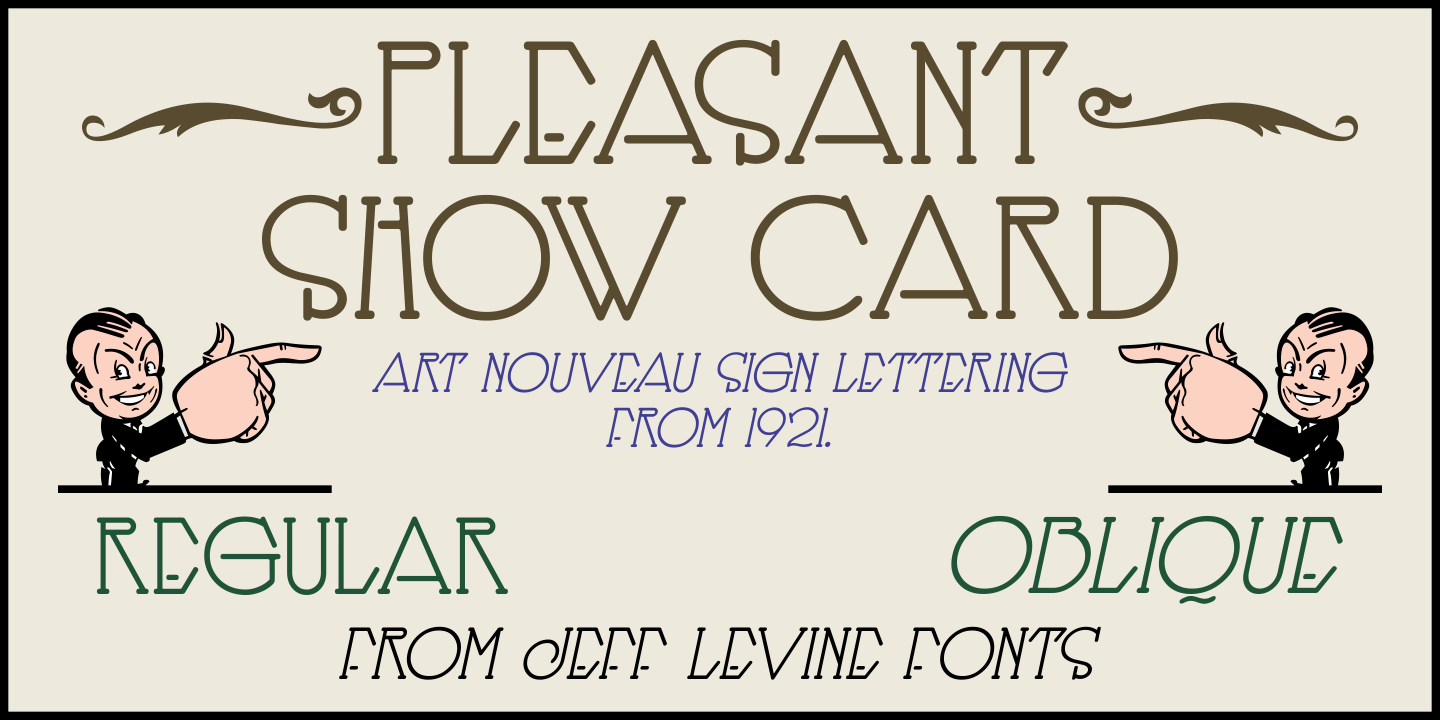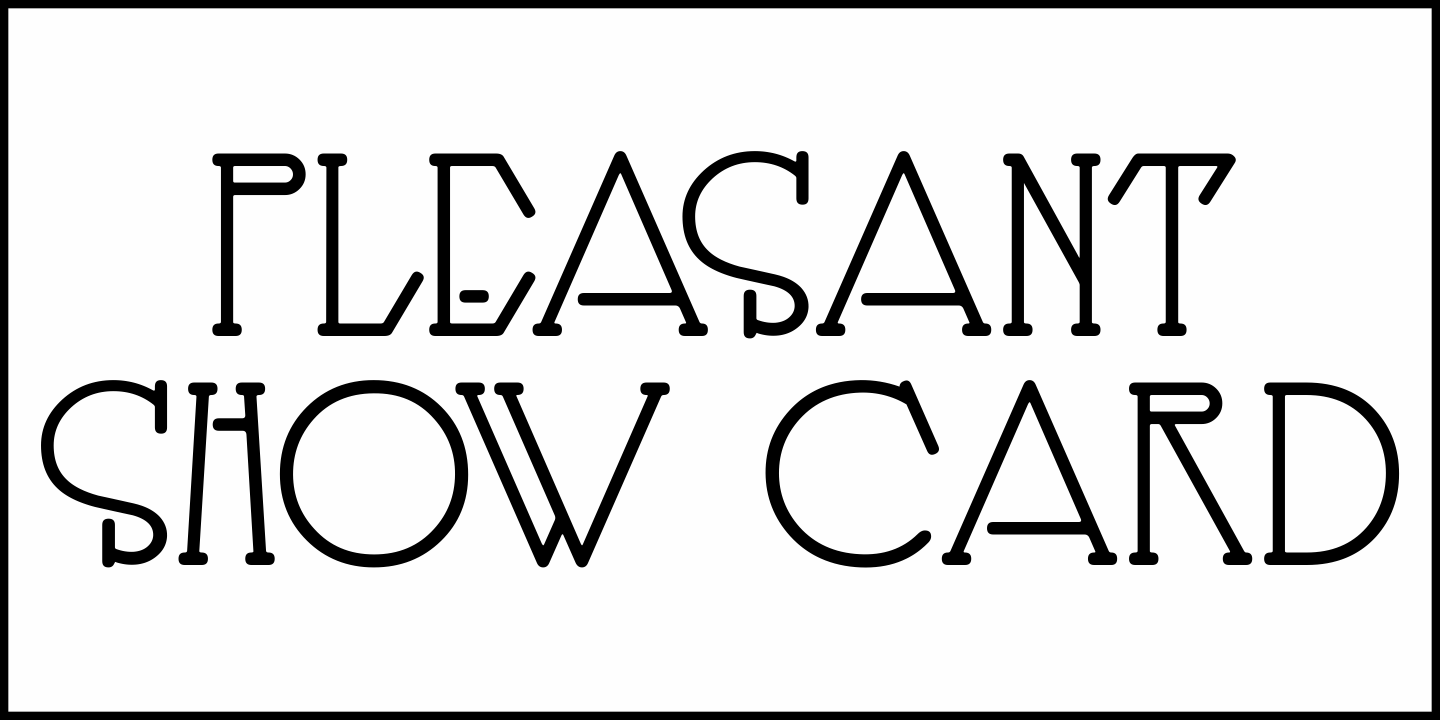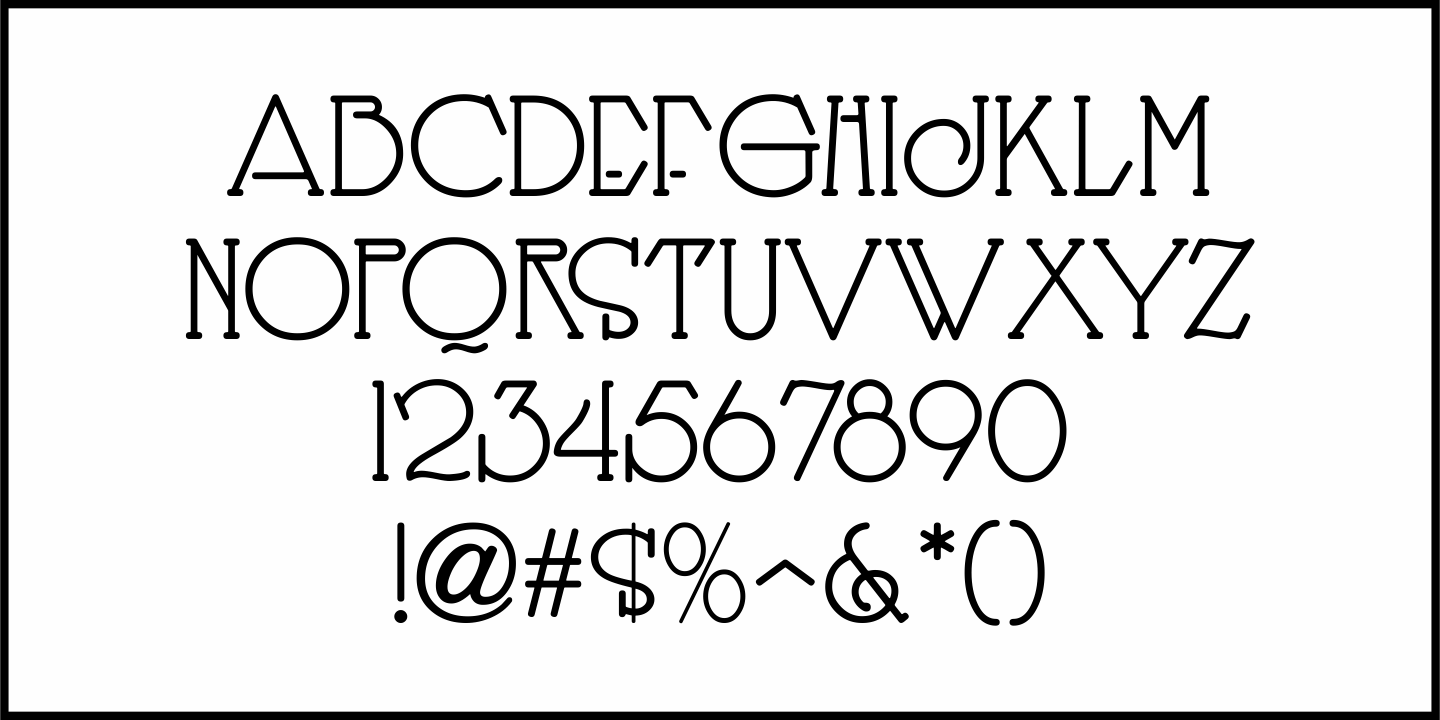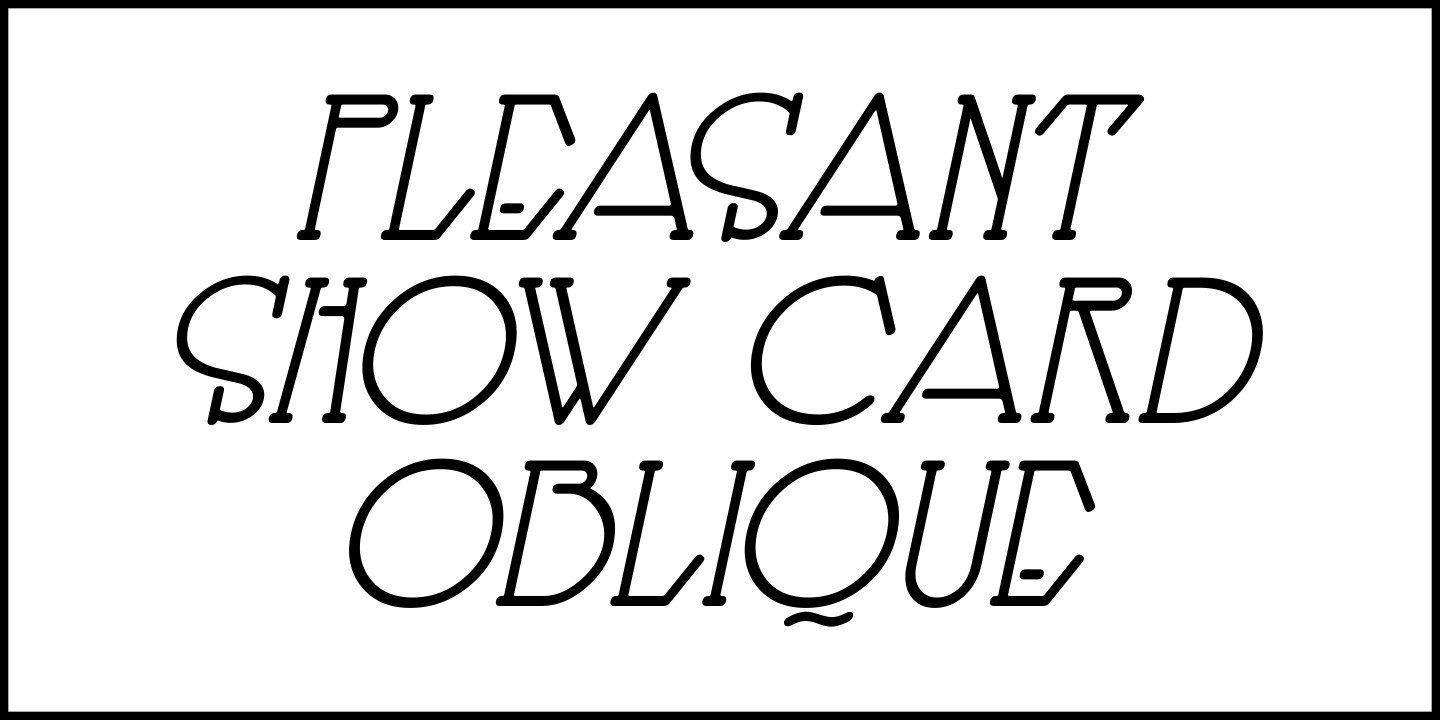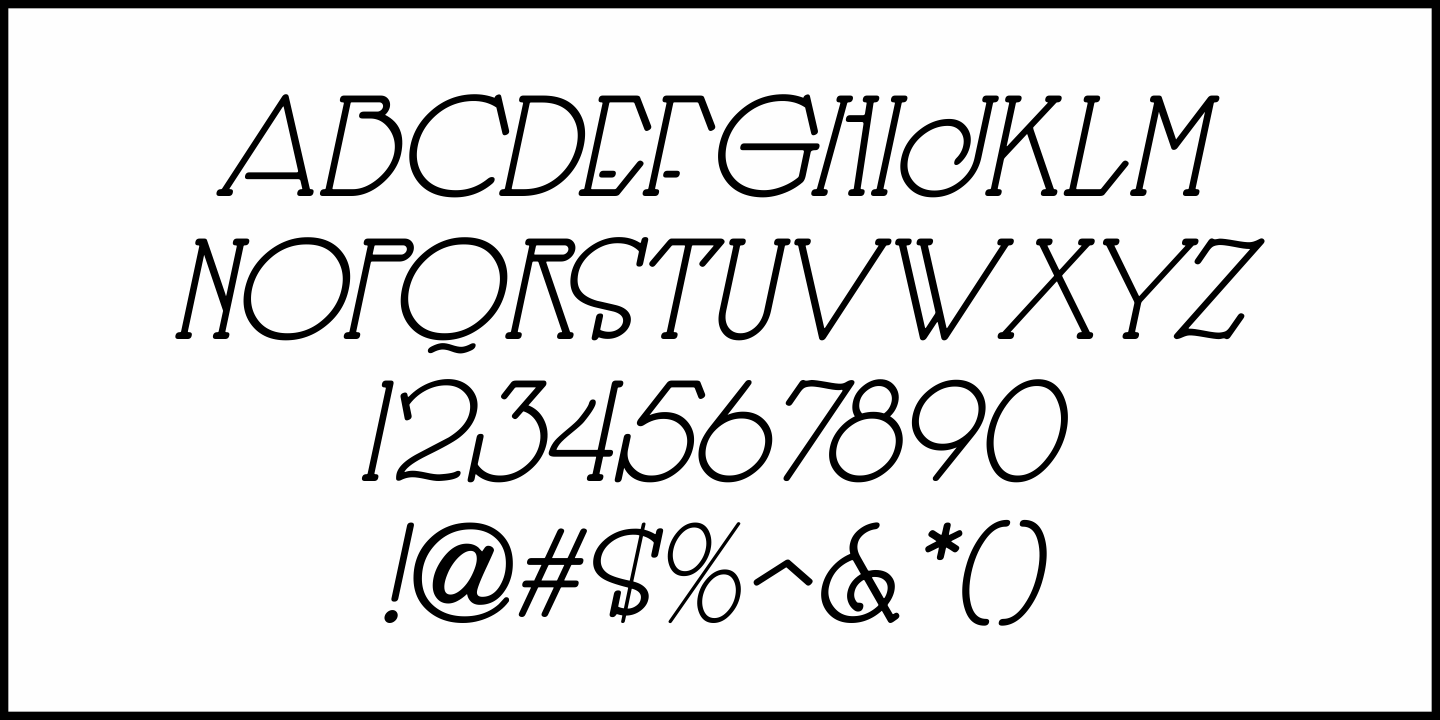
Pleasant Show Card
A beautiful and stylish pen lettered alphabet appears within the pages of the 1921 publication “How to Write Show Cards” and its Art Nouveau stylings made it a perfect candidate for a digital revival.
Pleasant Show Card JNL is available in both regular and oblique versions.